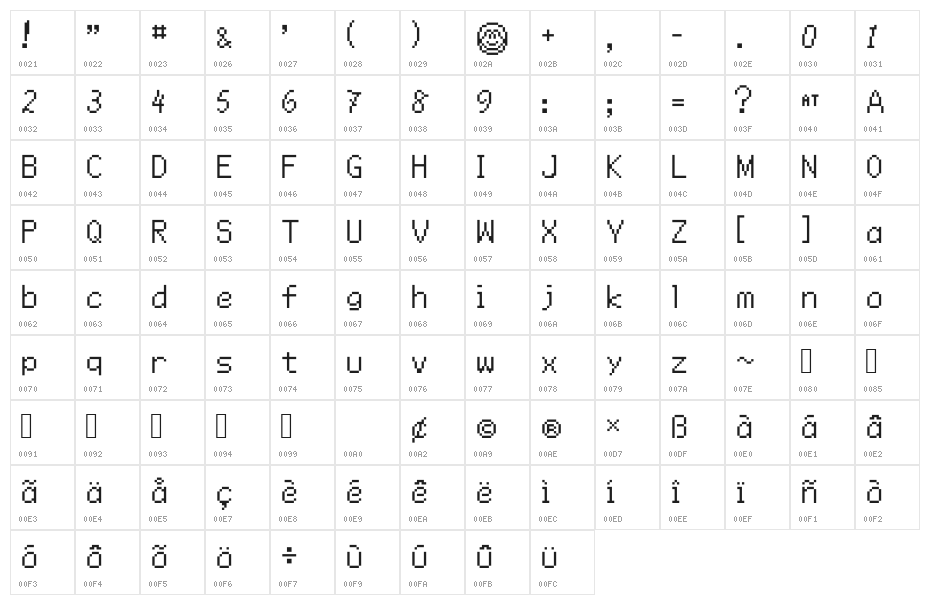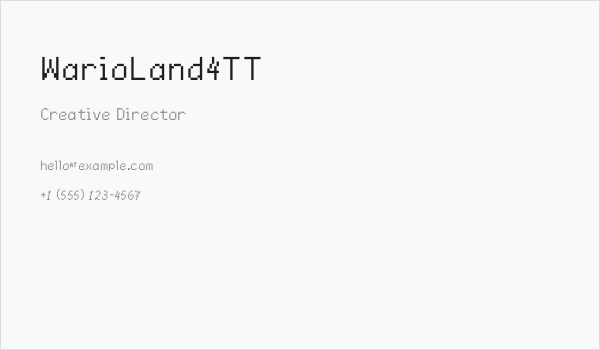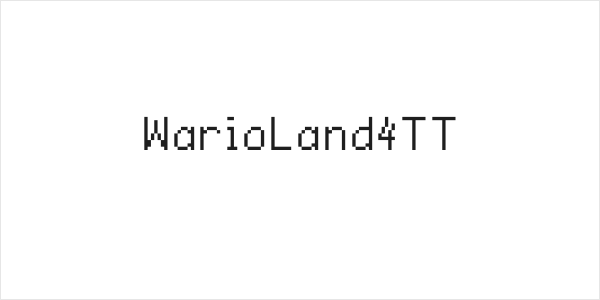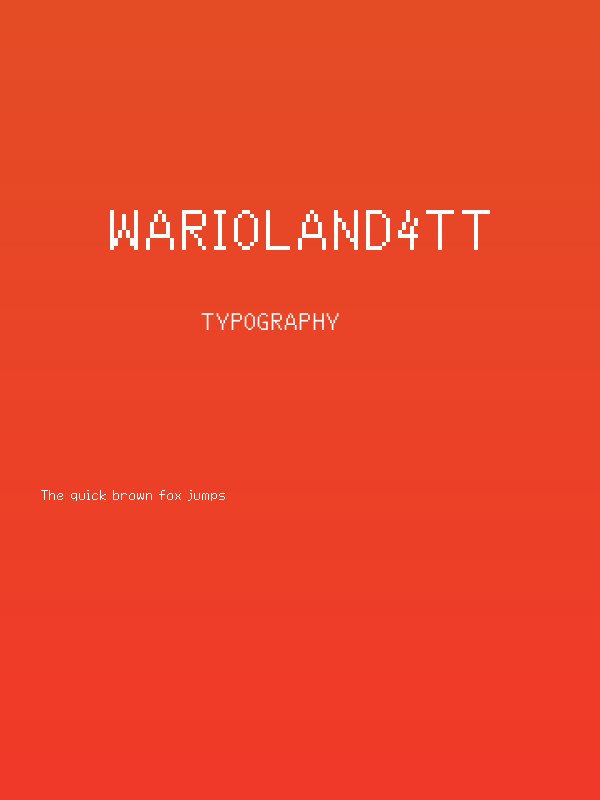
WarioLand4TT Font
WarioLand4TT Description
This font features a pixelated, blocky design reminiscent of classic video game graphics. Each character is composed of a grid-like structure, giving it a retro, digital appearance. The uppercase and lowercase letters maintain a consistent height, with the lowercase slightly smaller in width. Numbers and special characters follow the same pixelated style, ensuring uniformity across the font. The overall look is straightforward and geometric, making it ideal for projects that aim to evoke nostalgia or a vintage gaming aesthetic.
| Use Case | Logos, Headlines, Digital Art |
| Proposed Projects | Ideal for retro video game designs, digital art projects, and nostalgic branding. |